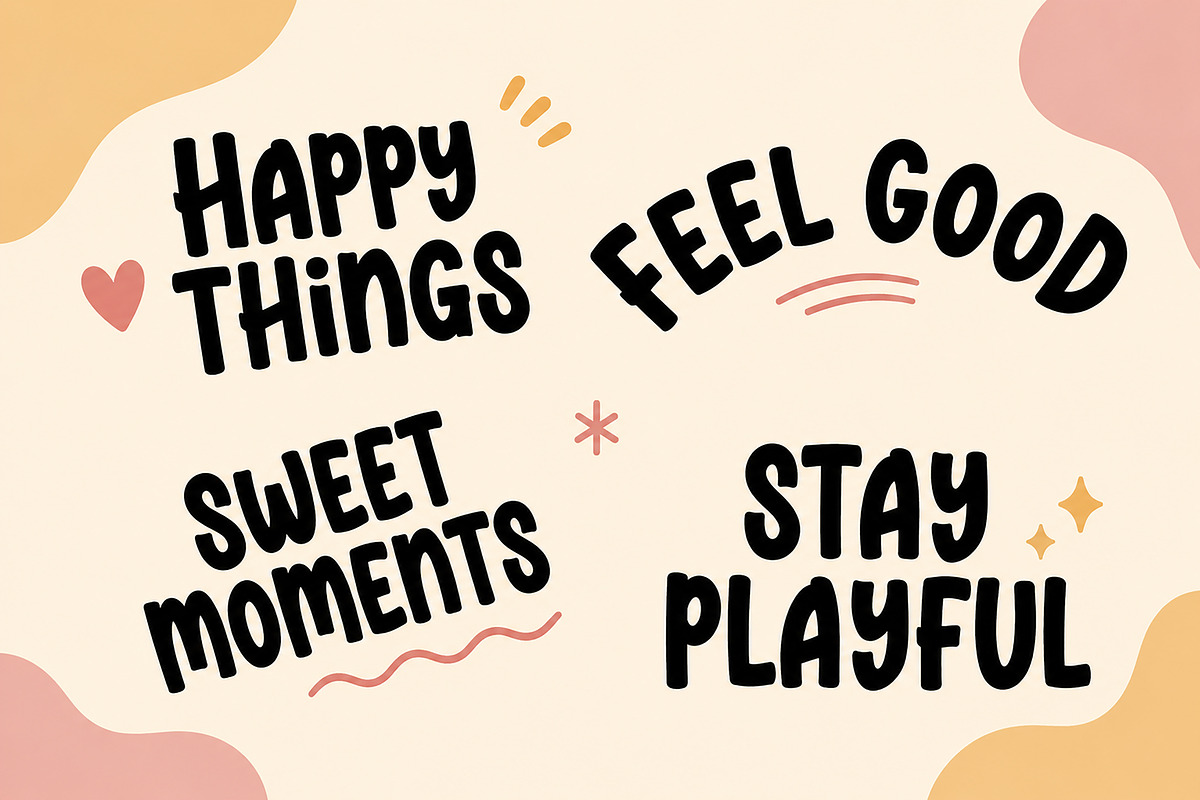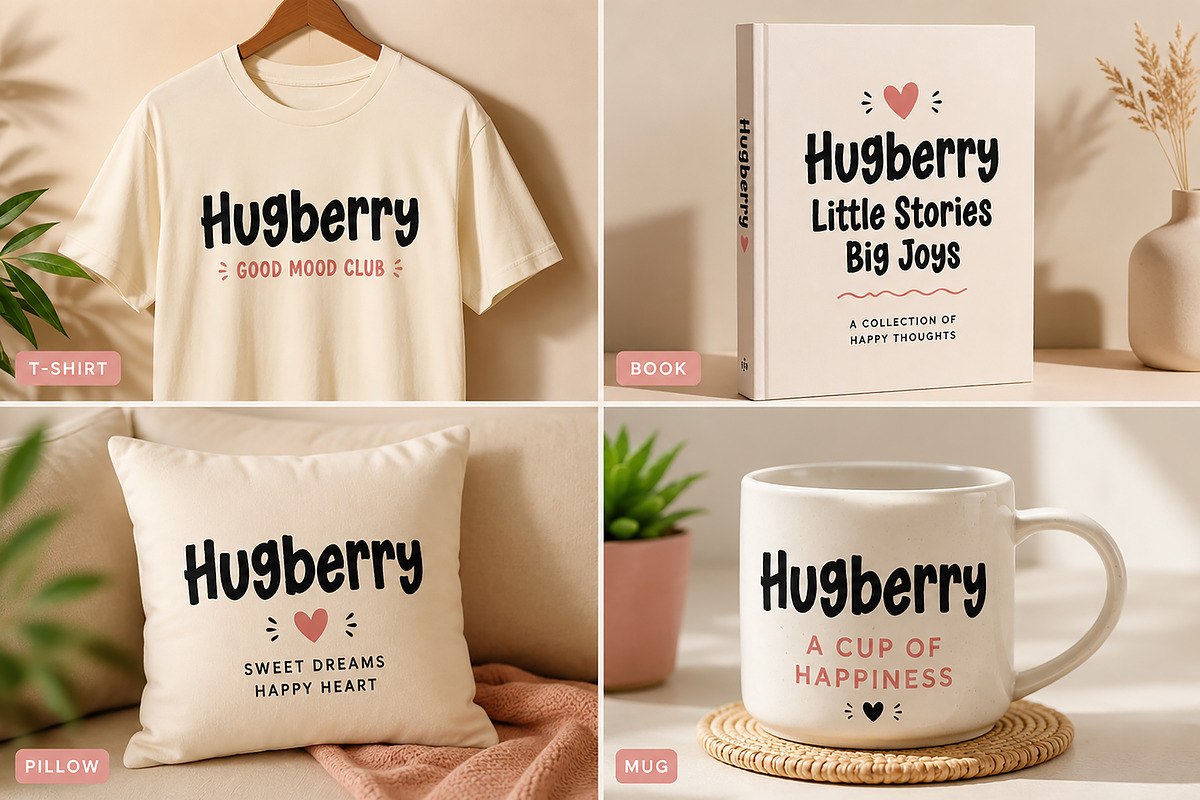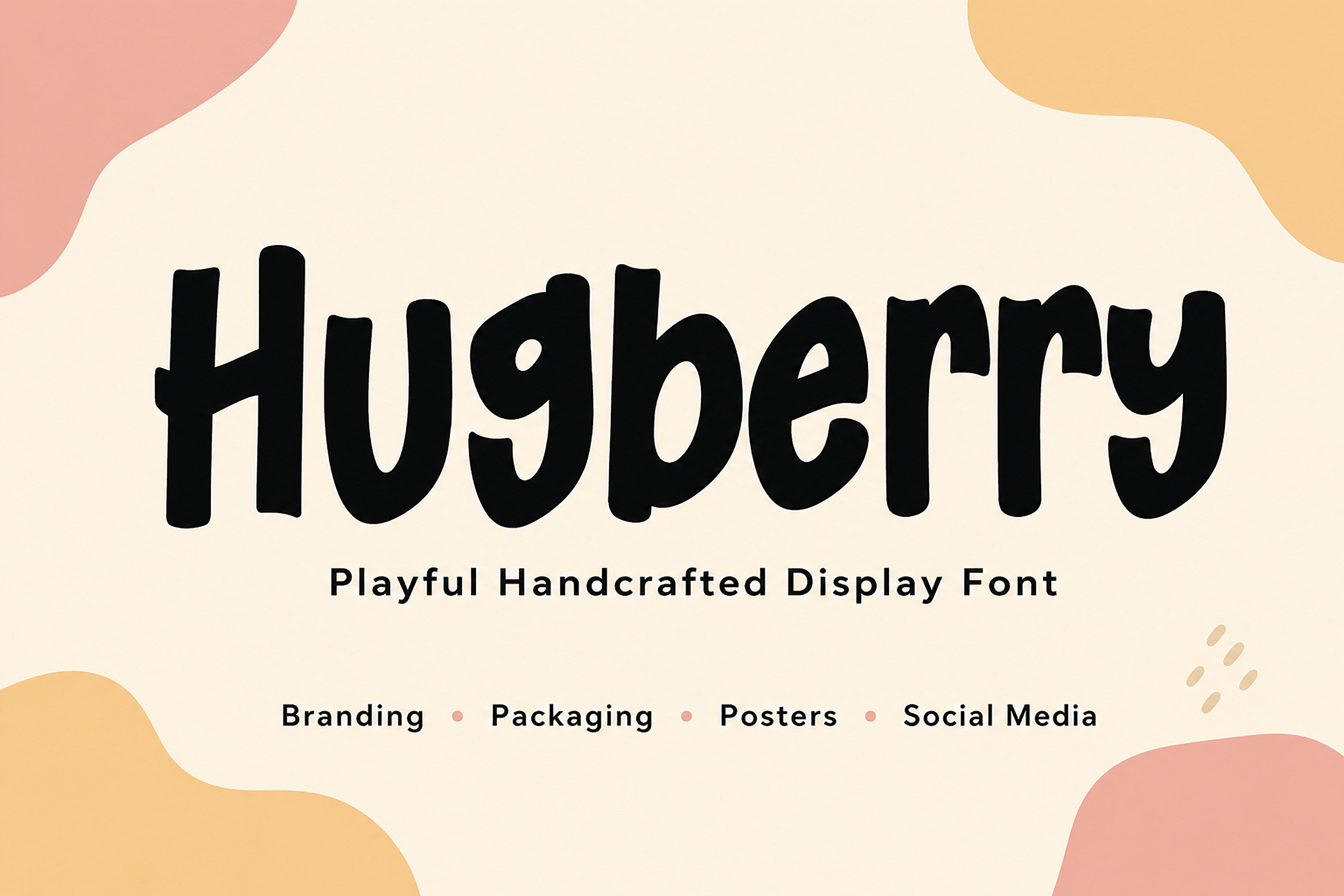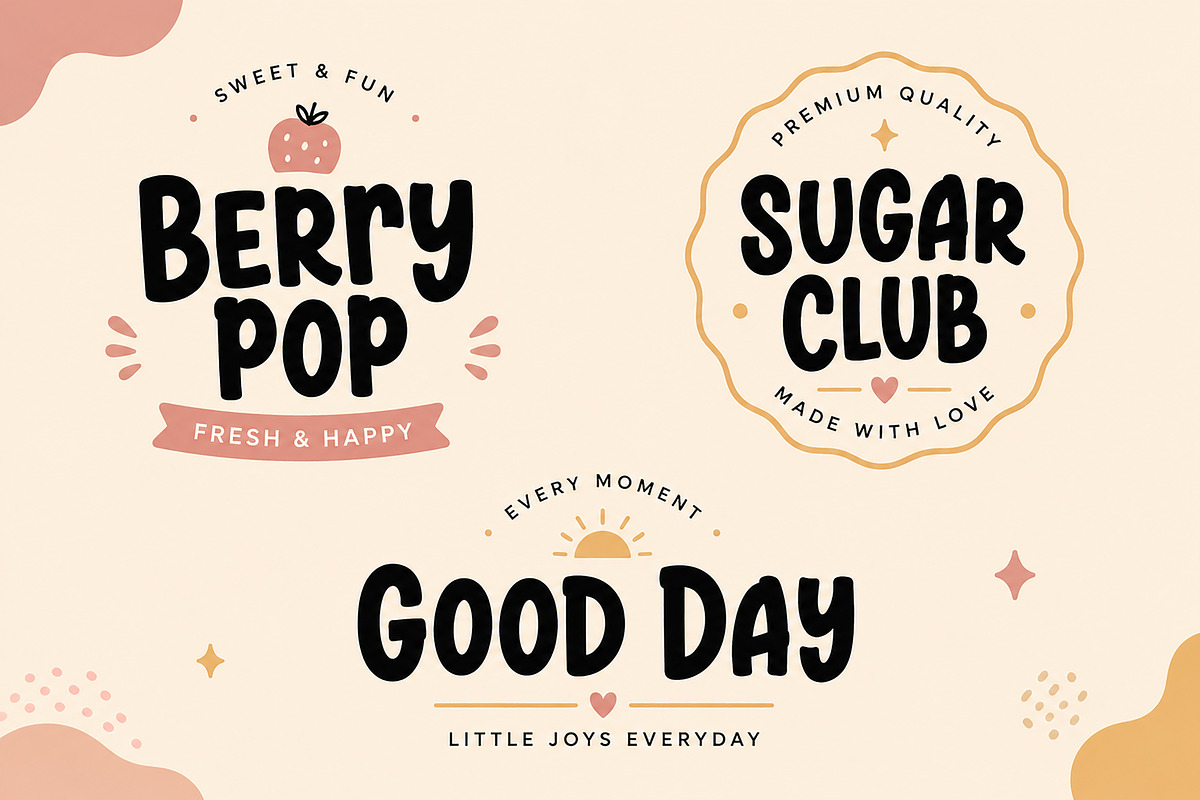
Hugberry – Handcrafted Display Font
Hugberry – Playful Handcrafted Display Font
Meet Hugberry, a bold and playful handcrafted display font filled with a warm, friendly personality. Its chunky letterforms, soft curves, and naturally quirky shapes give your designs a fun handmade character while keeping the overall look clean and eye-catching.
Hugberry is a great choice for designers who want typography that feels cheerful, expressive, and memorable. It works beautifully for branding, packaging, posters, apparel, book covers, social media graphics, merchandise, invitations, and many other creative projects.
Whether you're creating a playful brand identity, a bold headline, a cute packaging design, or an attention-grabbing T-shirt, Hugberry helps your words become the main visual feature.
Branding & Logo Design
Posters & Headlines
T-Shirt & Apparel Design
Book & Cover Design
Invitations & Greeting Cards
Labels & Stickers
Creative Advertising
Kids & Playful Projects
DIY & Craft Designs
Font Style: Playful Handcrafted Display Font
Hugberry is designed especially for display purposes, making it a great choice for large headlines, titles, logos, and other designs where typography needs to stand out.
Add a little more personality, happiness, and handcrafted charm to your next project with Hugberry.